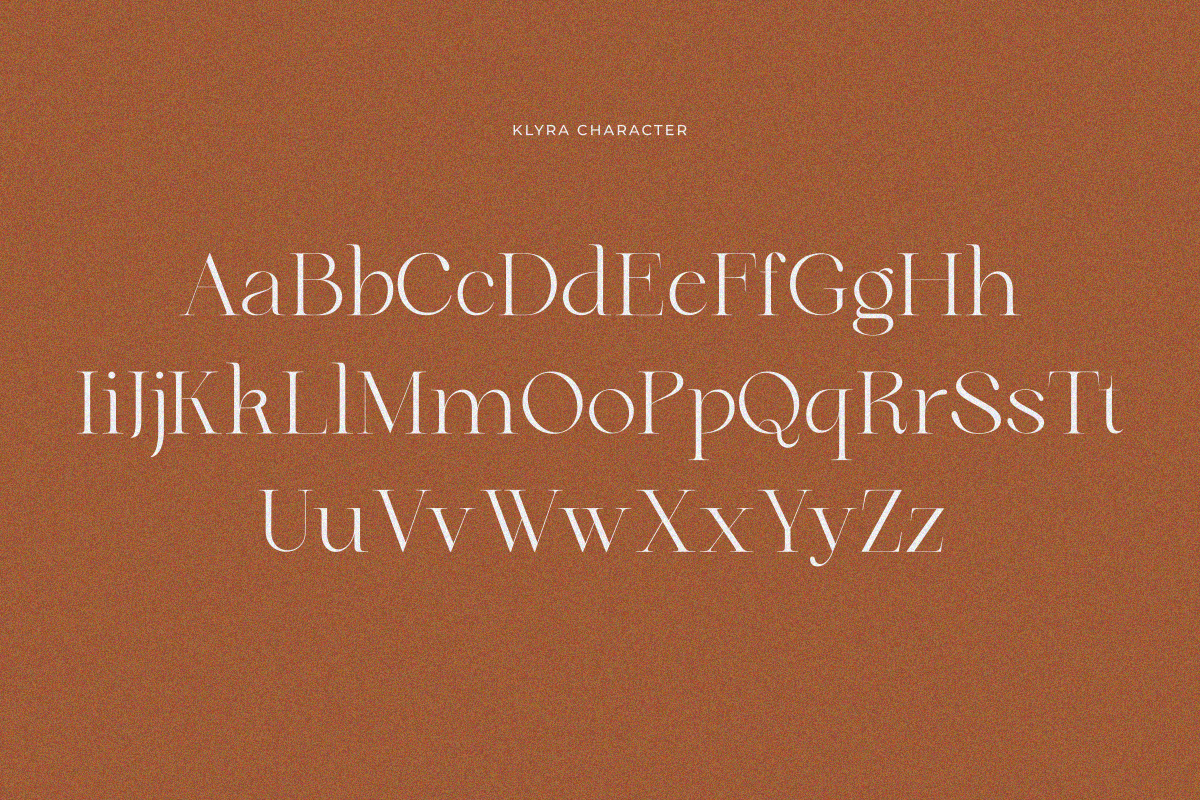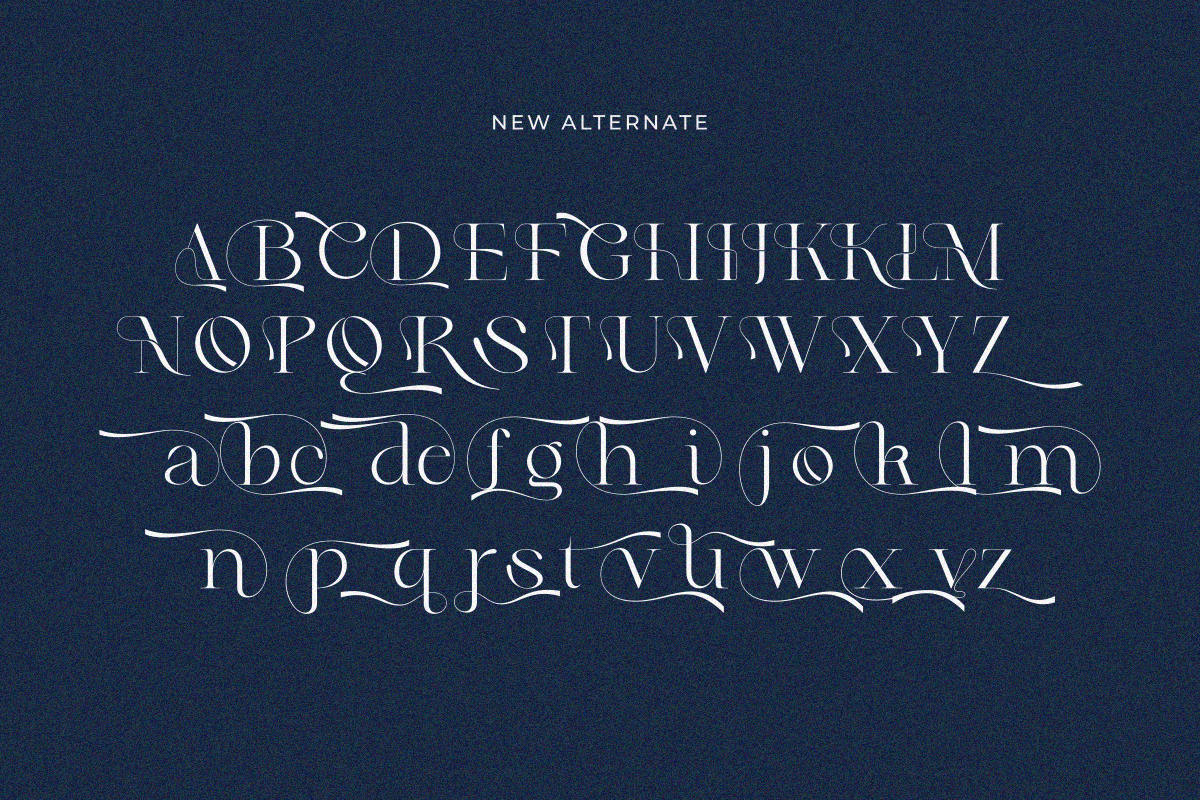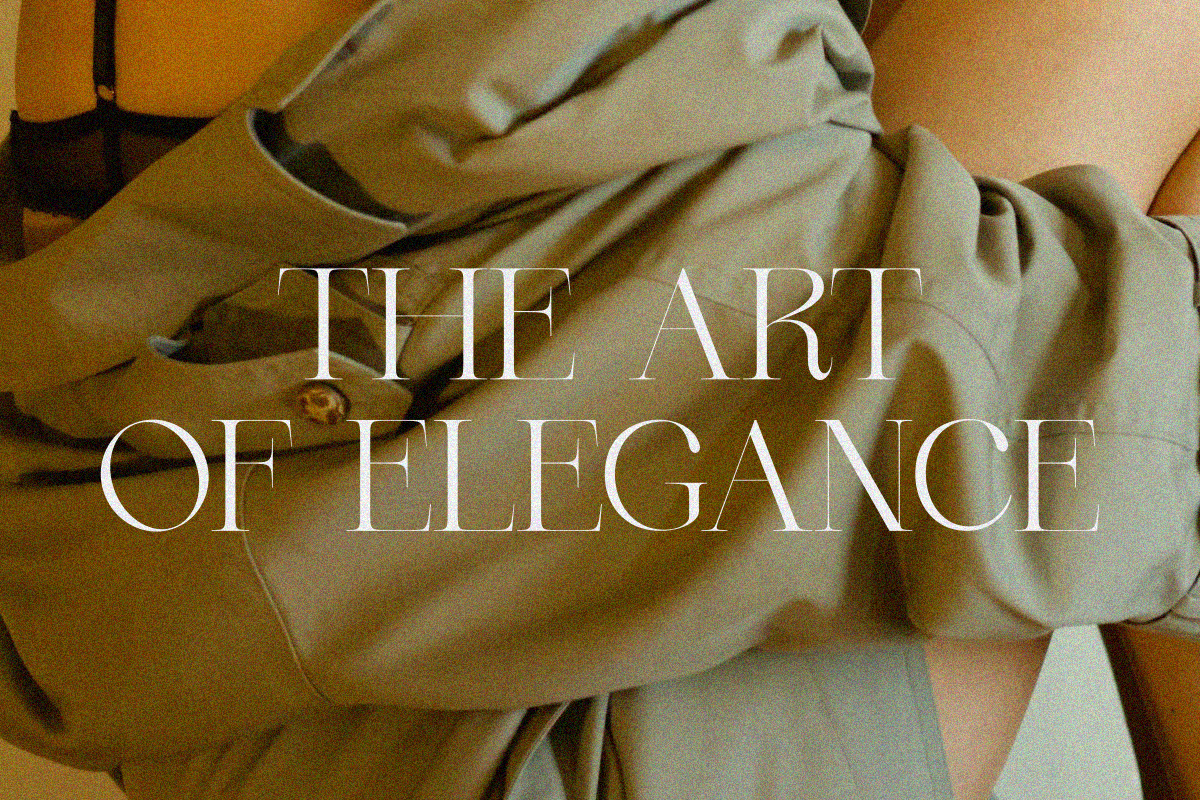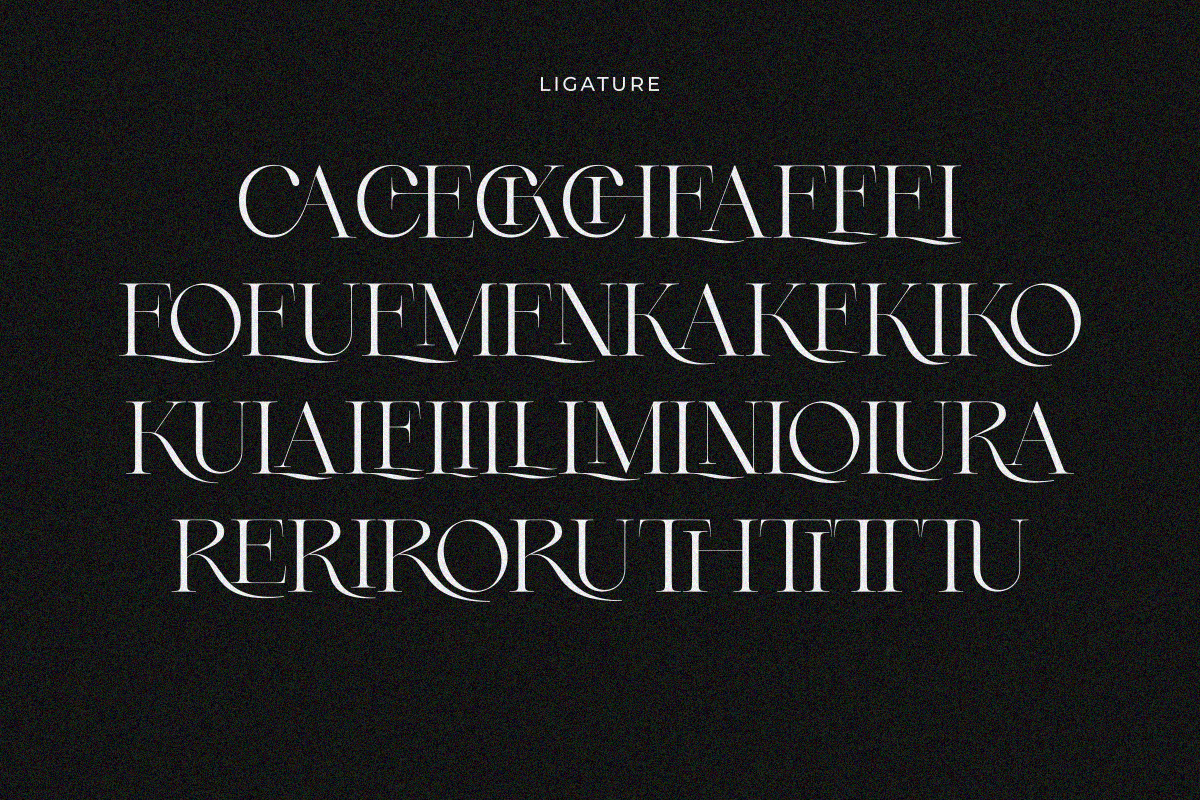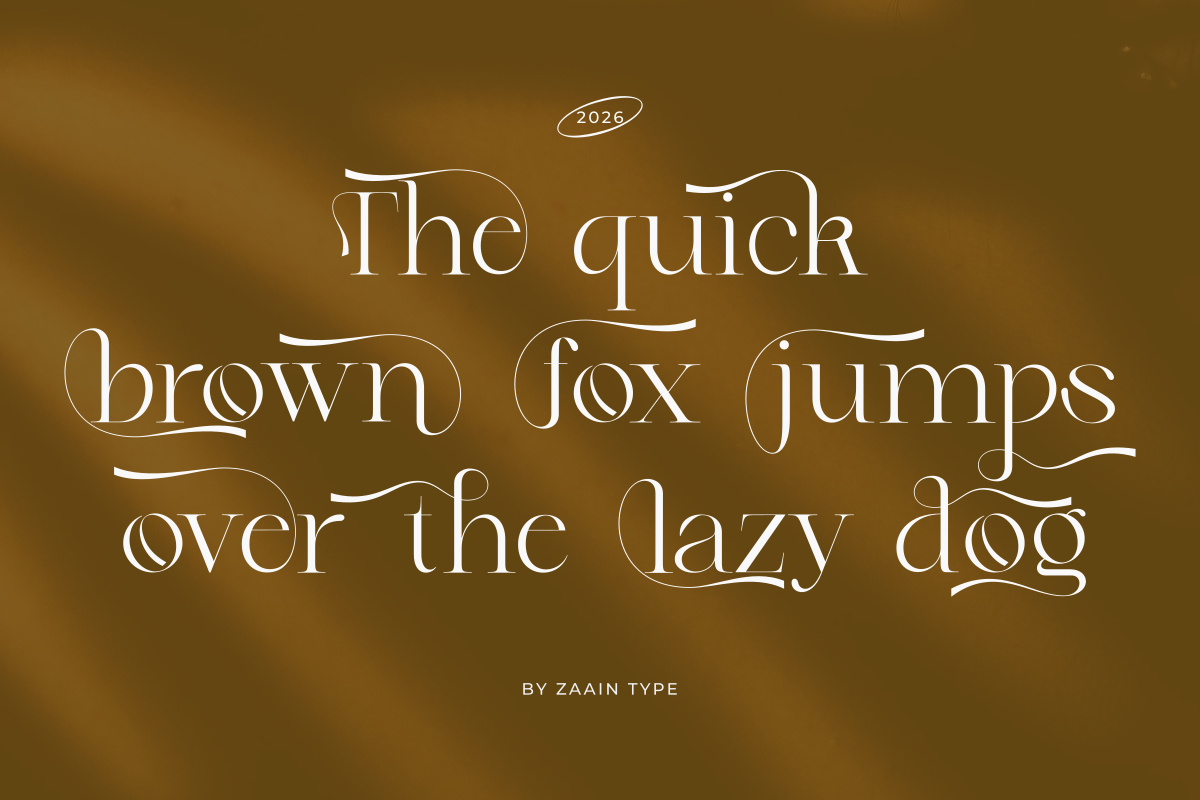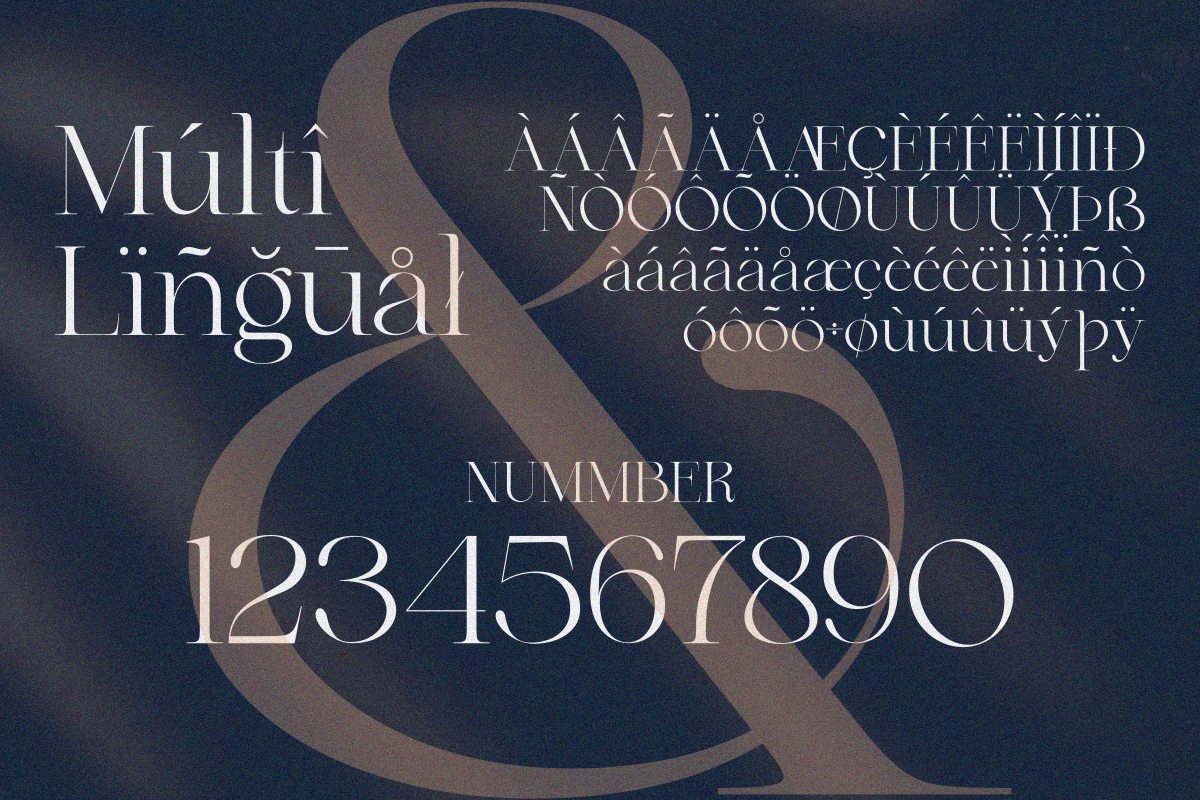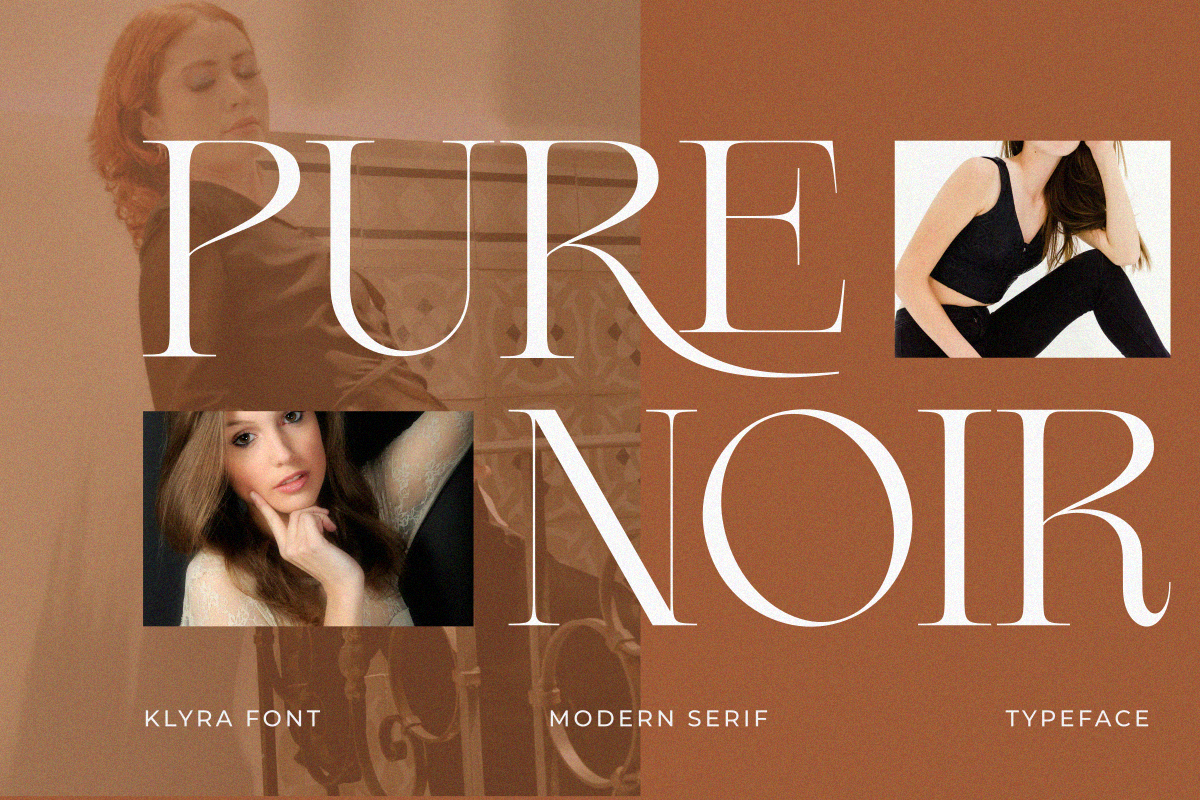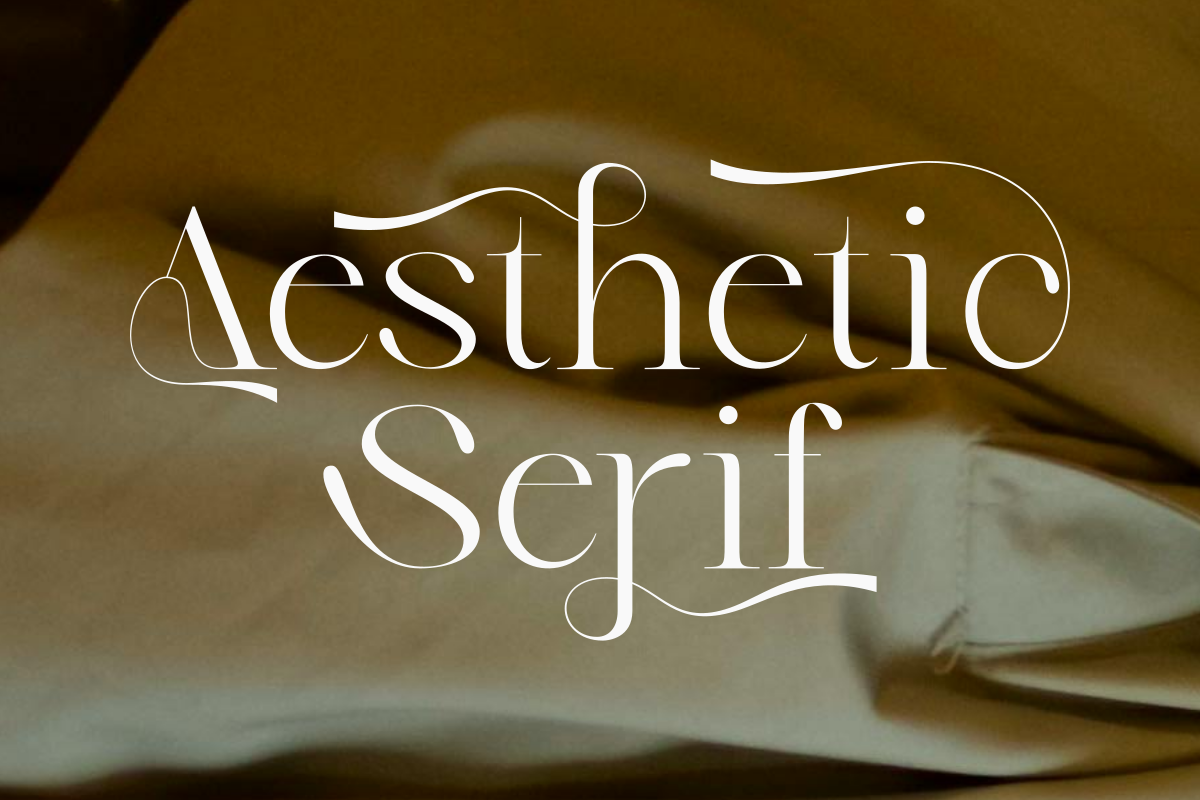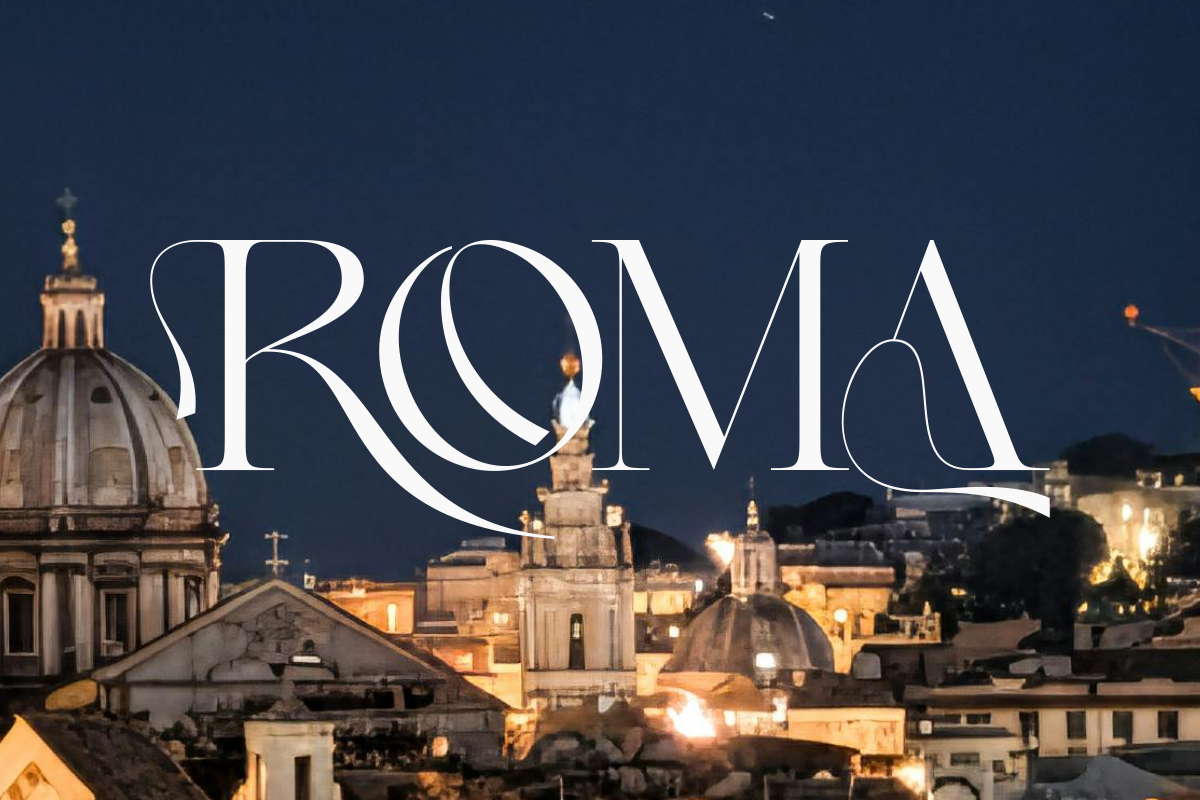
Klyra
Klyra is a refined serif font that blends timeless elegance with a modern luxury touch. Designed with graceful curves and high-contrast details, Klyra delivers a sophisticated appearance perfect for branding, editorial layouts, fashion magazines, cosmetics, packaging, wedding designs, and premium logos.
Its stylish character creates a beautiful balance between classic beauty and contemporary aesthetics, making every word feel graceful, confident, and memorable. Whether used for bold headlines or delicate typography compositions, Klyra brings an exclusive and artistic impression to your creative projects